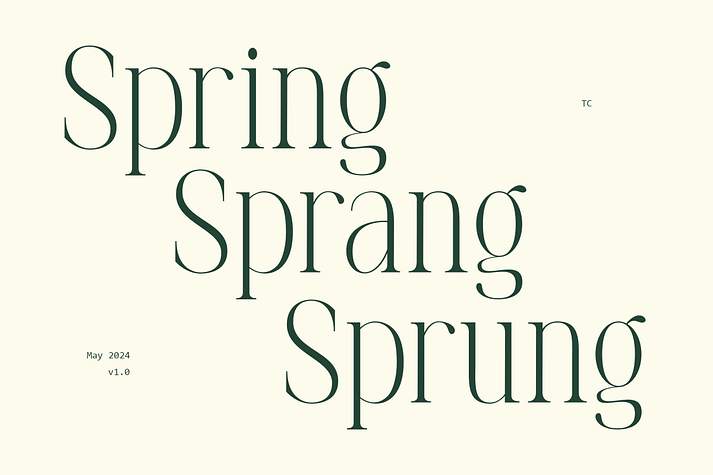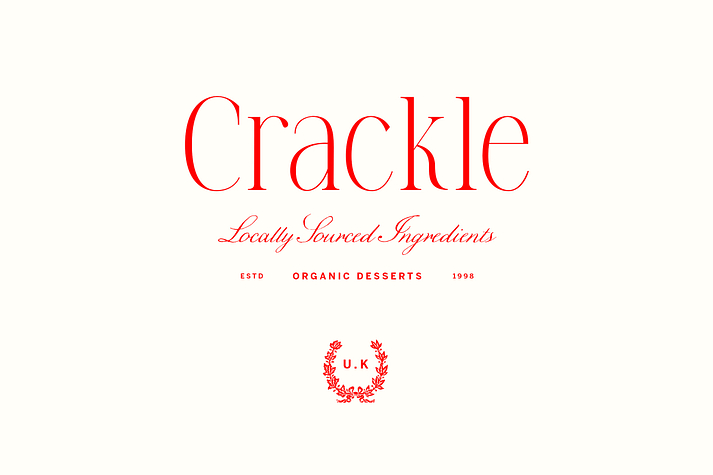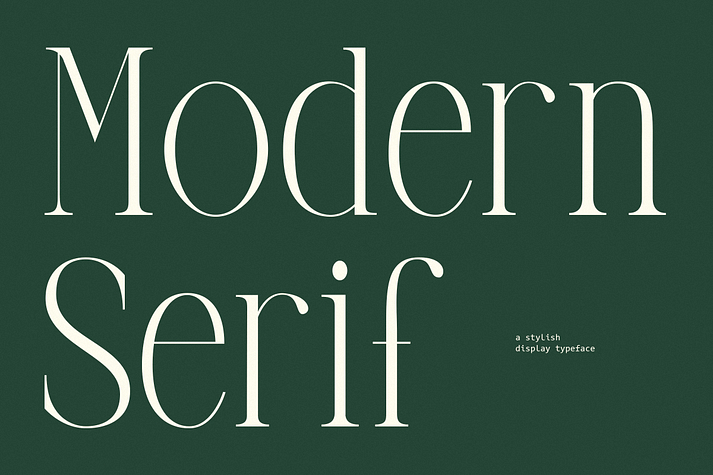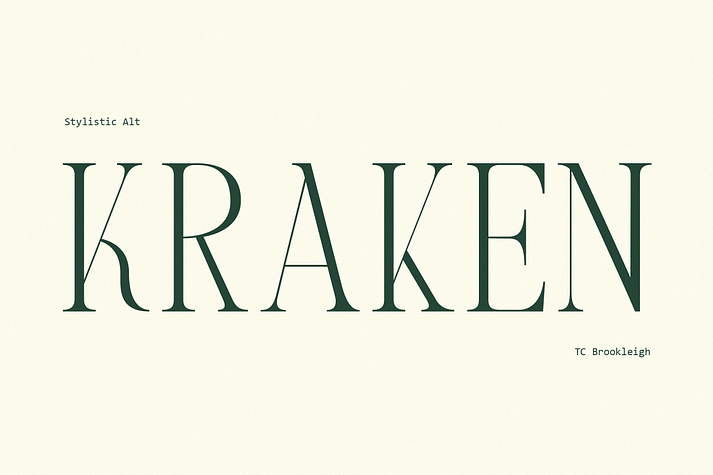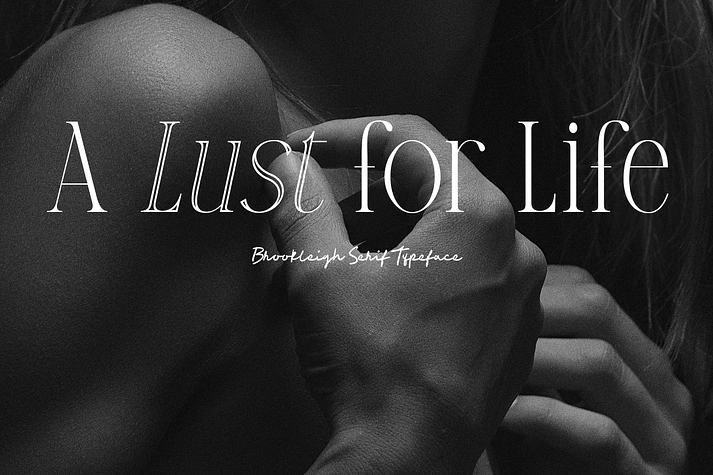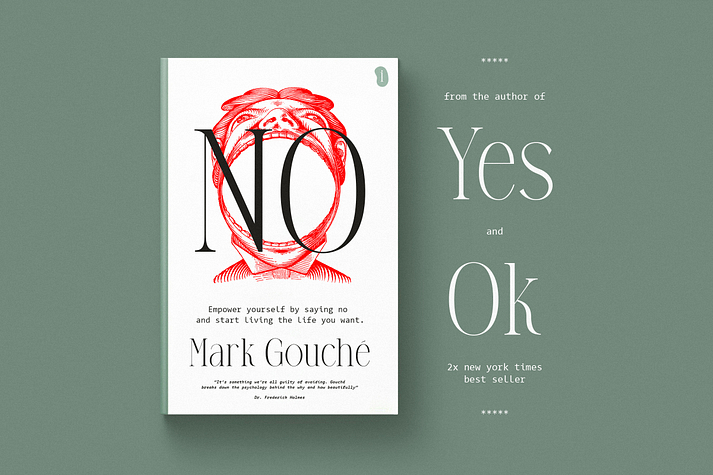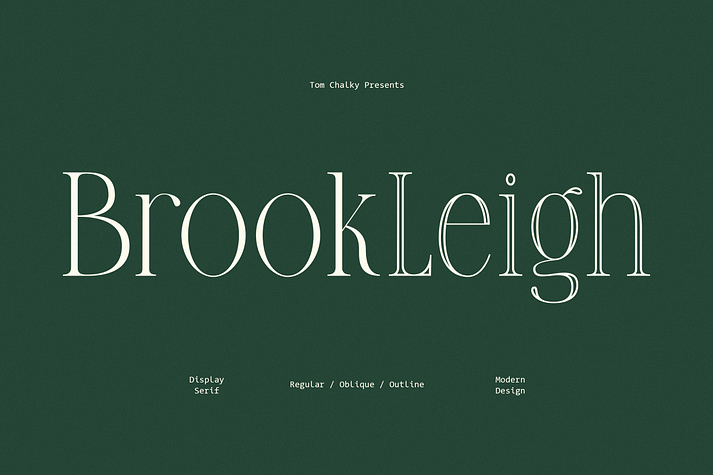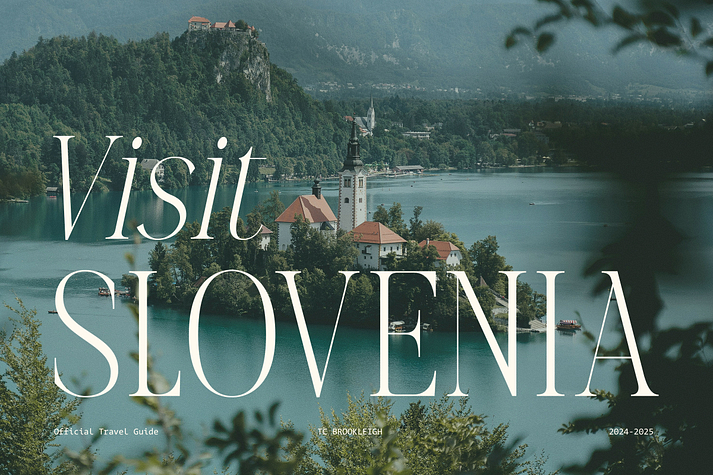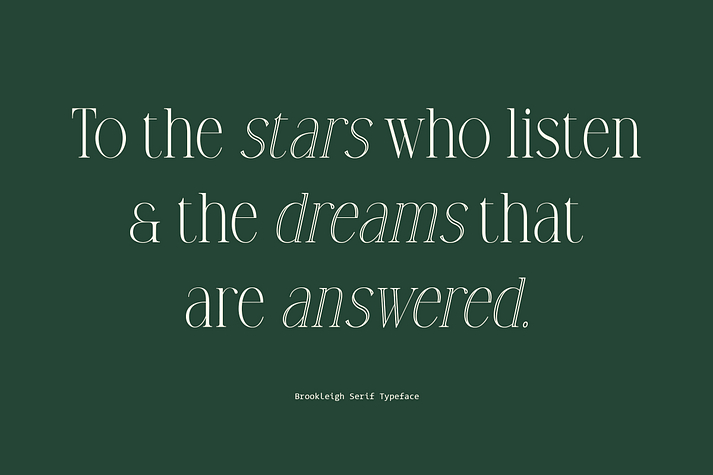
TC Brookleigh
TC Brookleigh is a display serif, script and serif font family. This typeface has four styles and was published by Tom Chalky.
Introducing Brookleigh - A gorgeous modern and classy serif font family.
Inspired by typography-focused minimalism, Brookleigh provides a feast for the eyes, oozing class and elegance through curves and a slightly condensed appearance.
This wonderfully diverse serif was designed to take up space - looking its very best when used at larger sizes (headers, titles, call to actions, quotes, etc).
A great serif for labels/logos in combination with scrips and sans typefaces (see the ‘Crackle’ image above for reference!) and a fine choice for book covers, poster design, and much more.